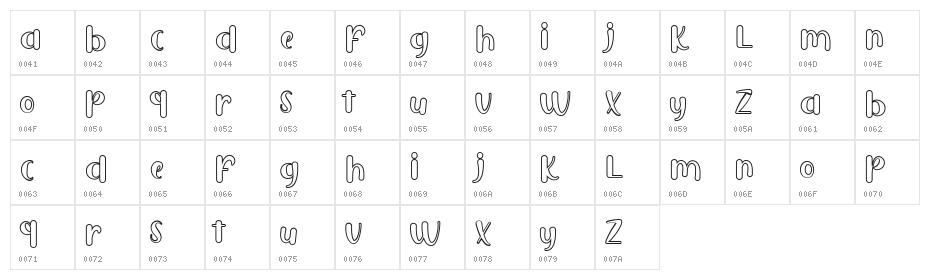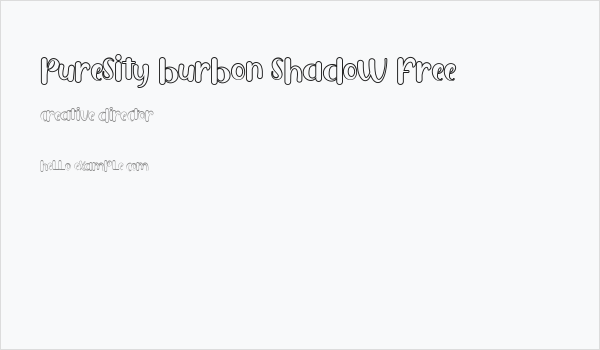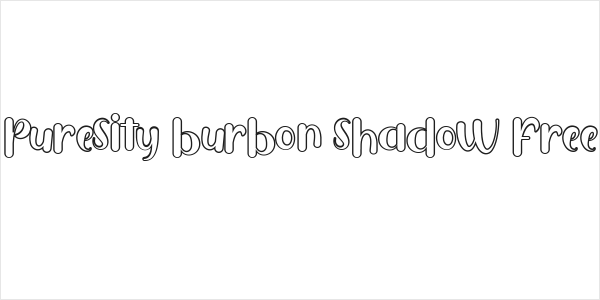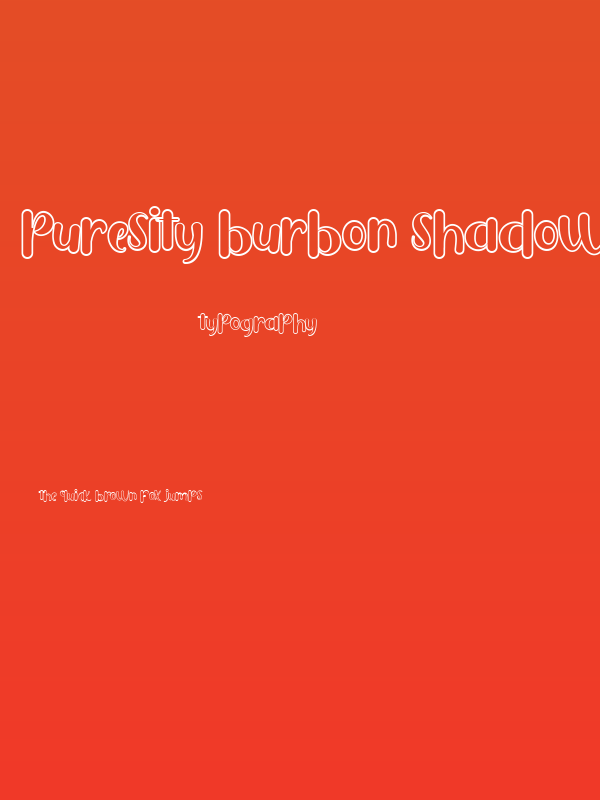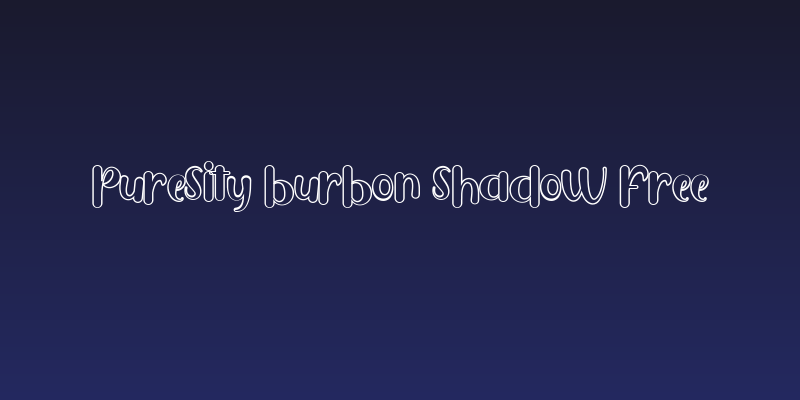
Puresity Burbon Shadow FREE Font
Puresity Burbon Shadow FREE Description
This font features a playful and rounded design with a shadow effect that adds depth and dimension. The characters are bold and have a consistent thickness, creating a uniform appearance. The rounded edges and smooth curves give it a friendly and approachable feel. The shadow effect is subtle yet effective, enhancing the overall style without overpowering the text. This font is versatile and can be used in various design projects where a touch of creativity and fun is desired. The spacing between characters is balanced, ensuring readability while maintaining its unique style.
| Overall Style | Playful, Creative |
| Proposed Projects | Ideal for children's books, playful branding, creative posters, and social media graphics. |